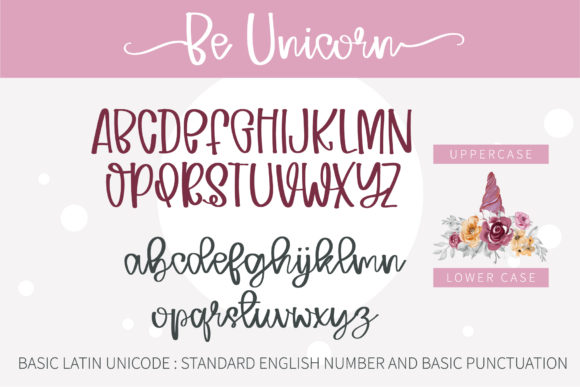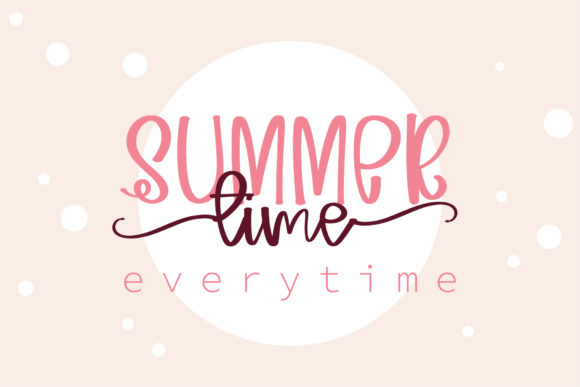
Be Unicorn Font
Be Unicorn is a beautiful and friendly handwritten font with a romantic theme. Use it for any design projects that require a charming appearance!